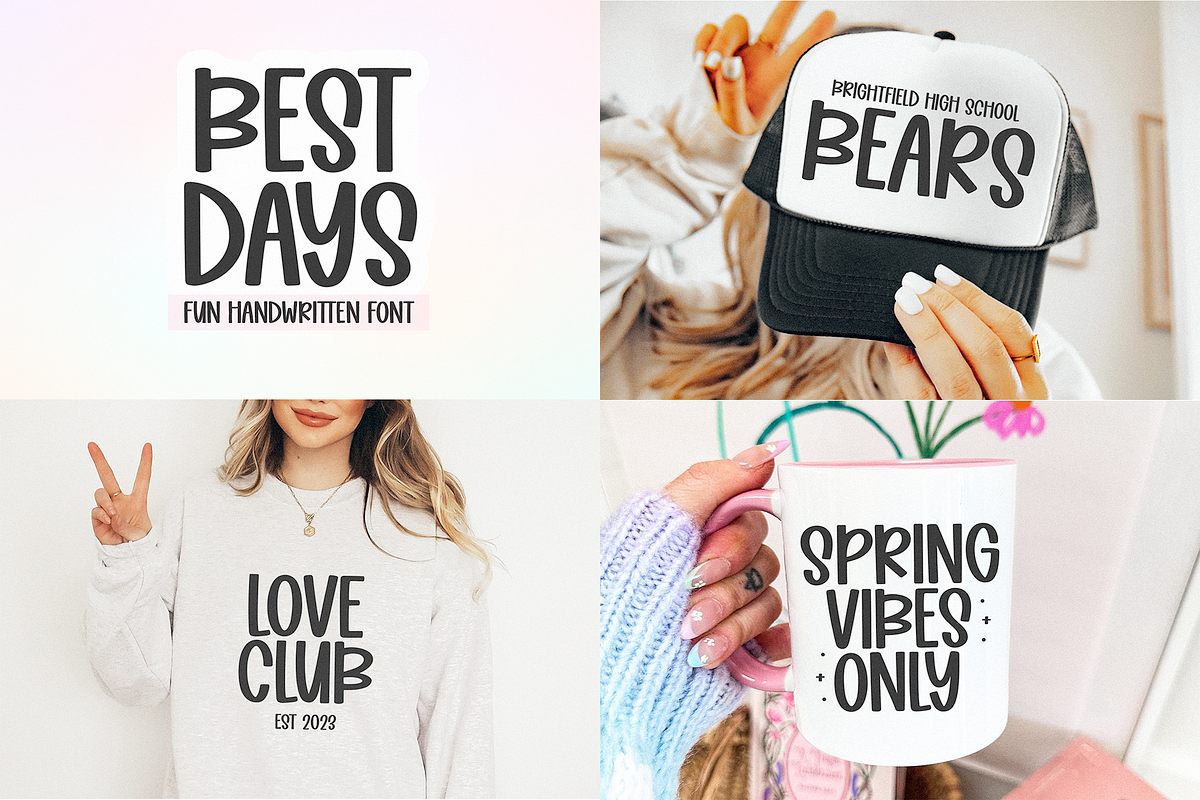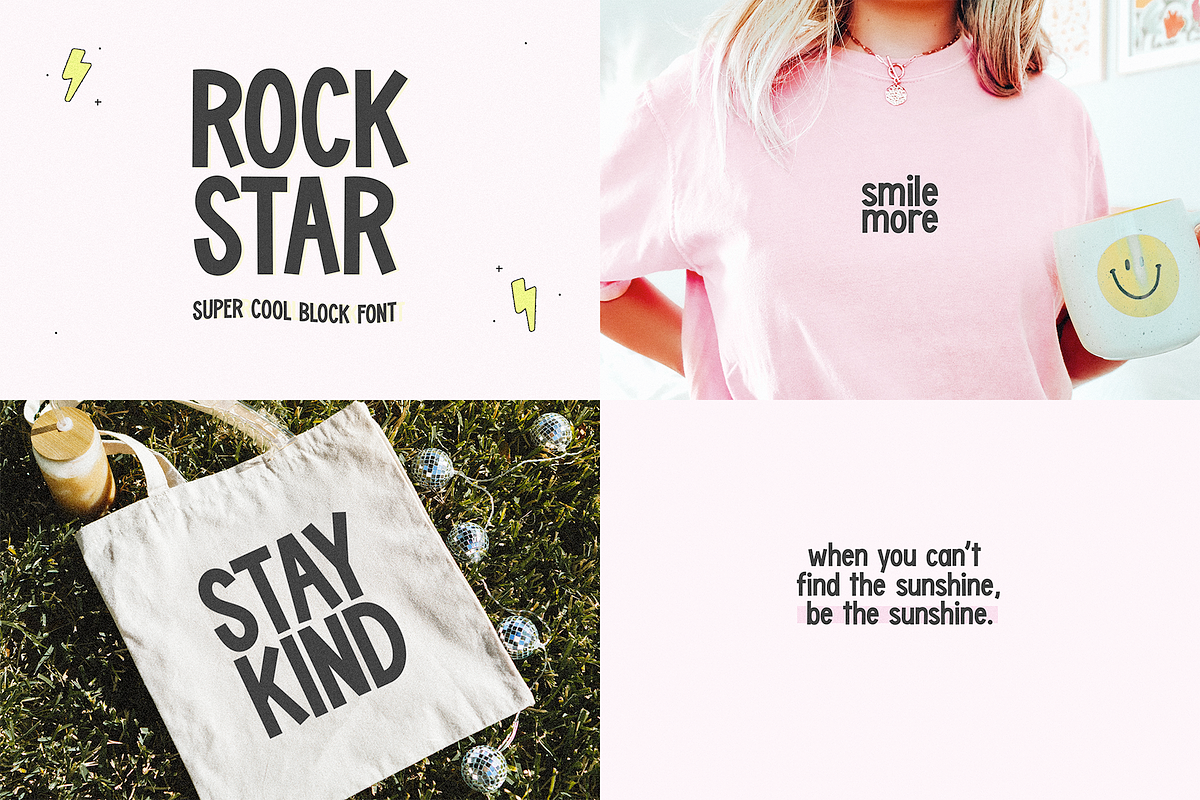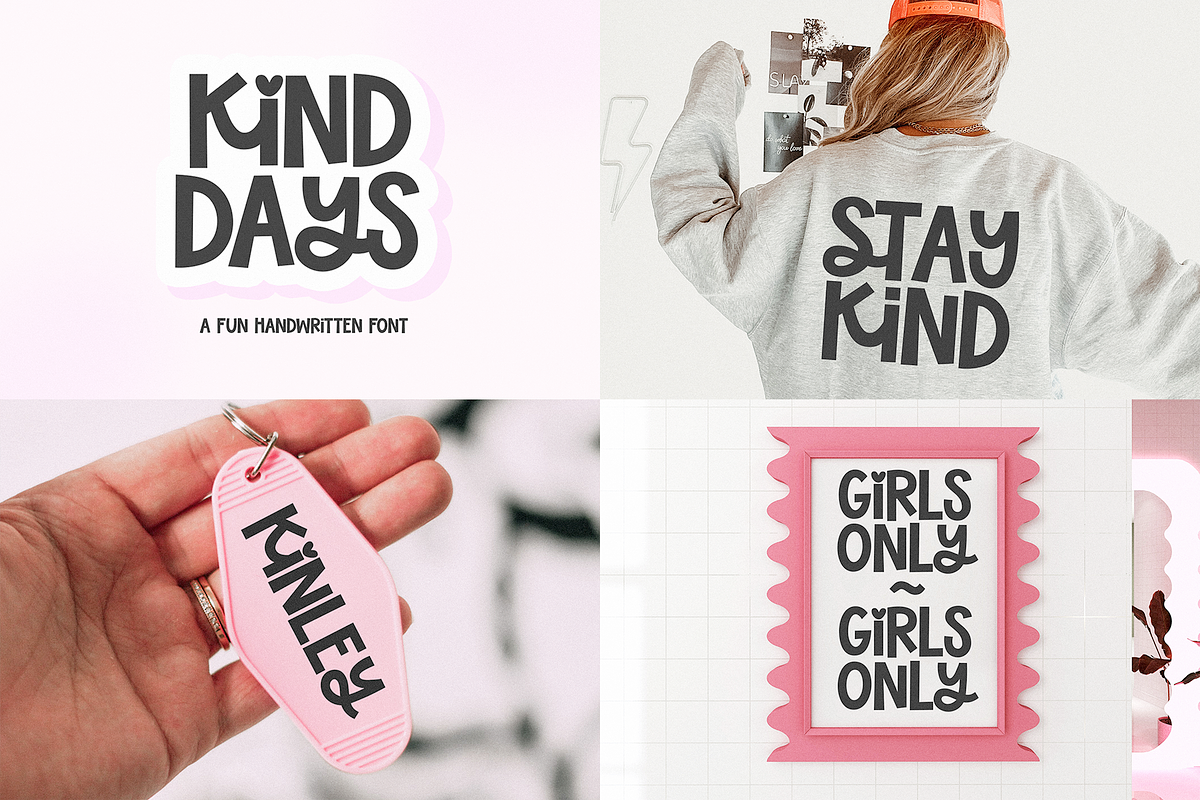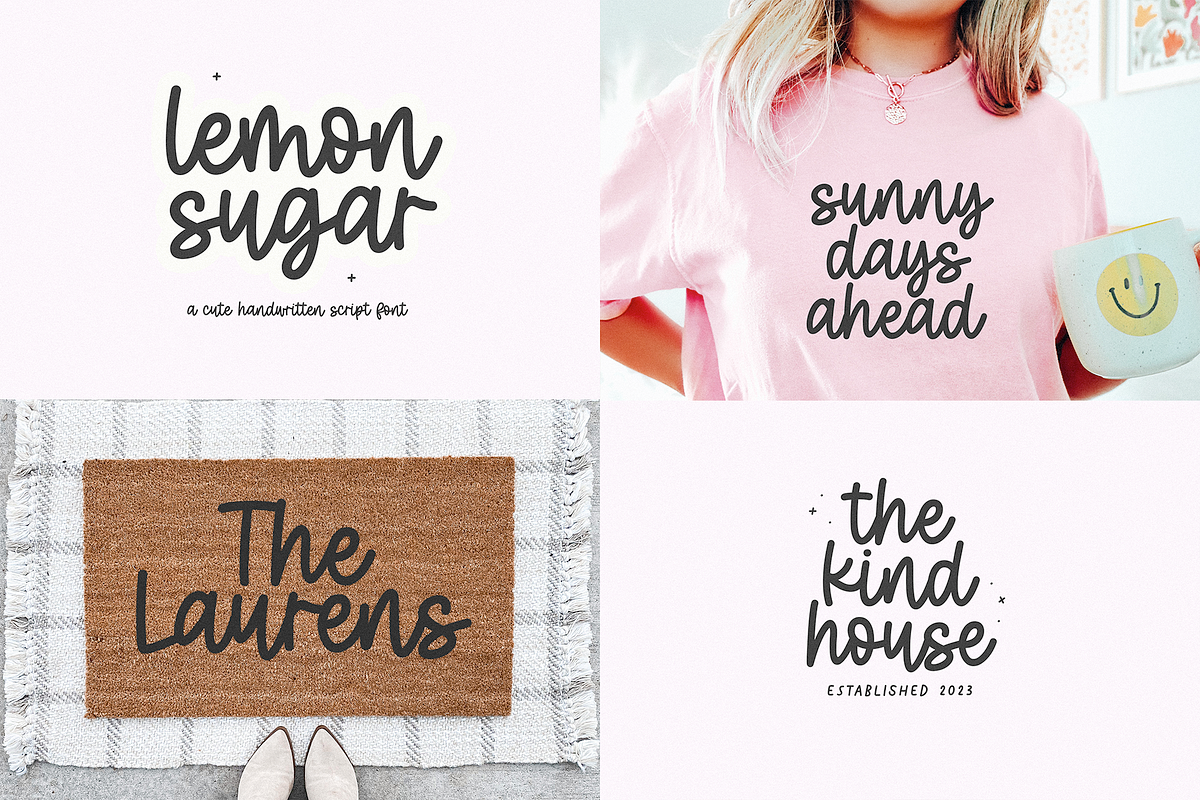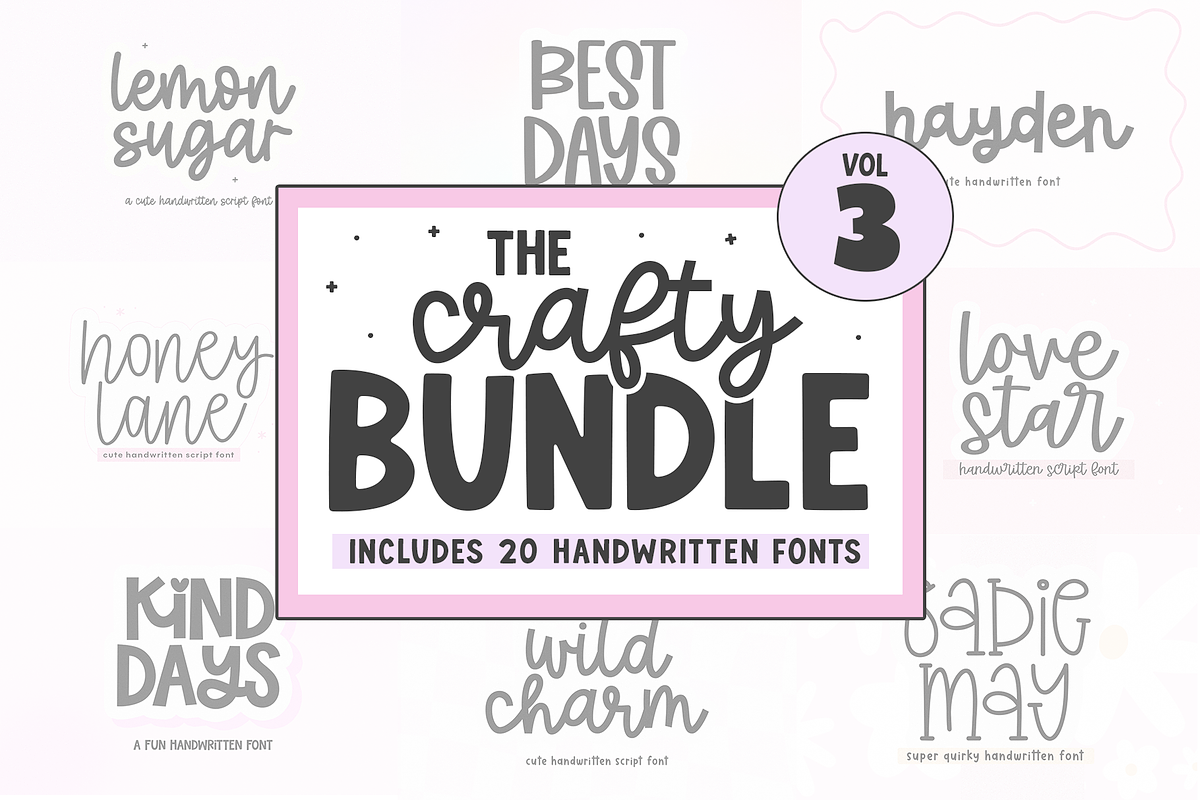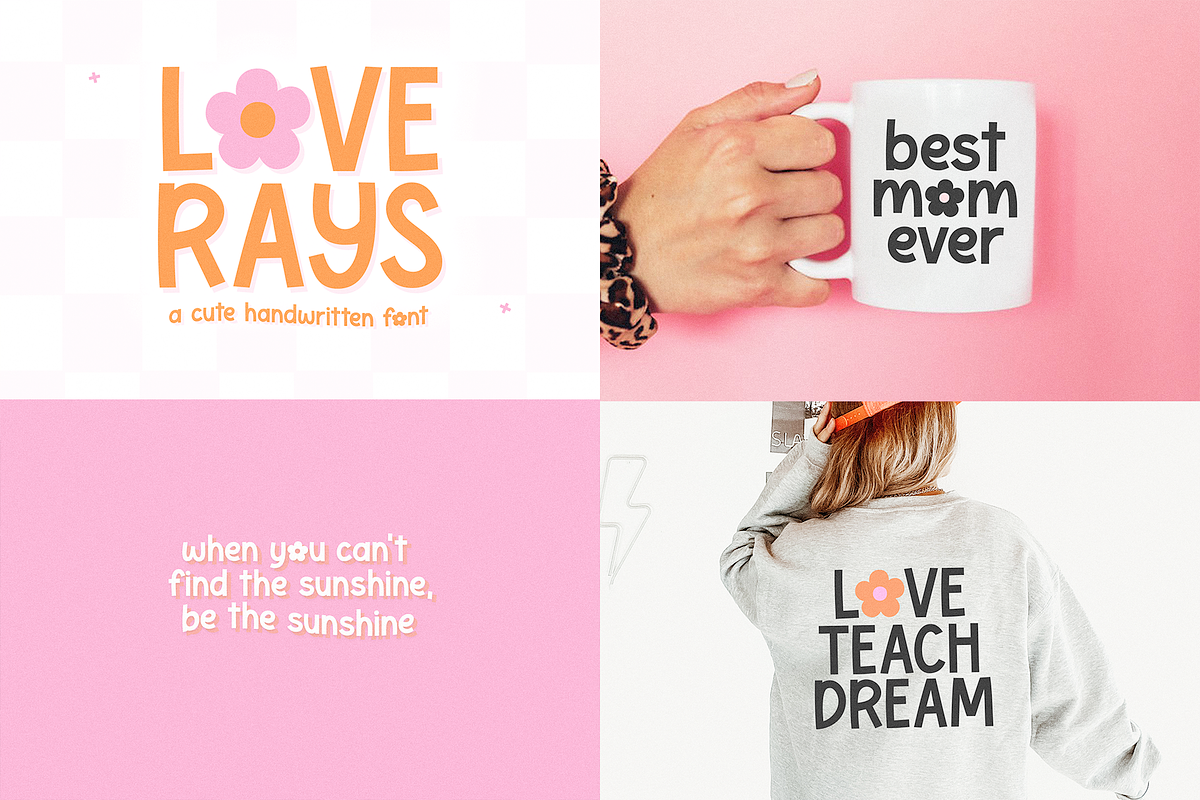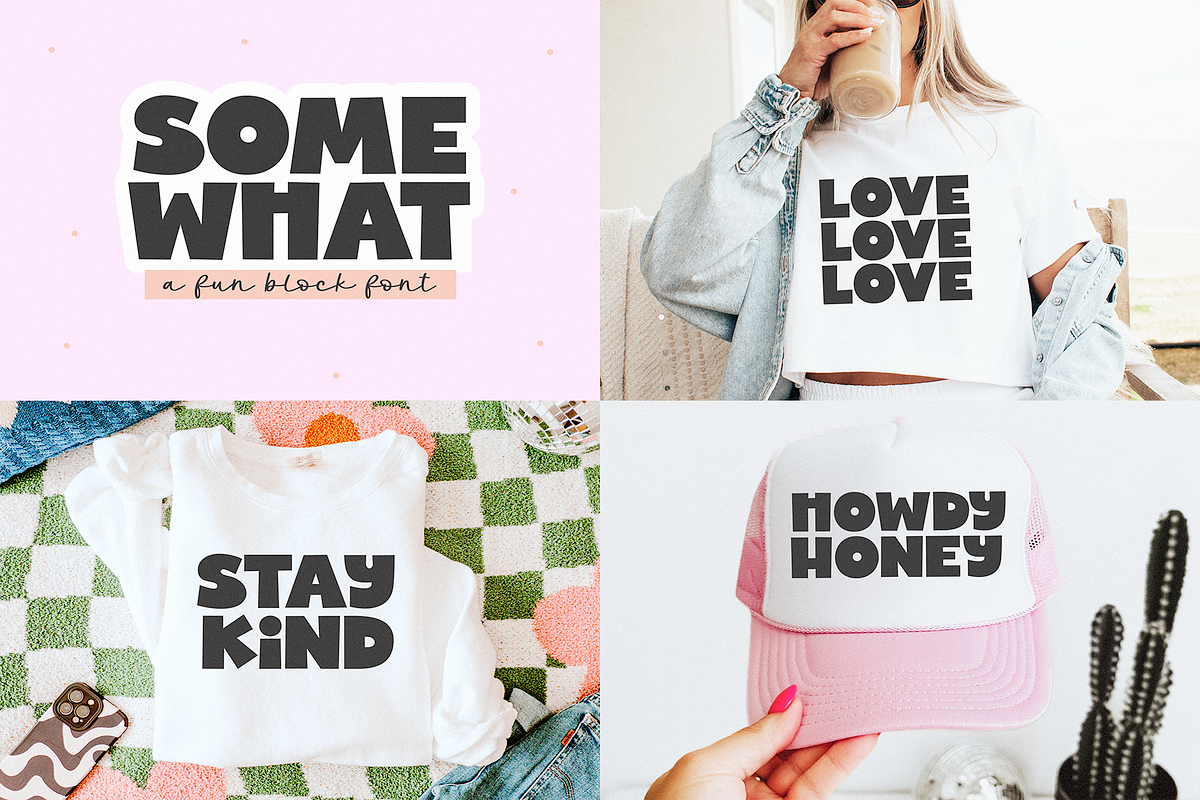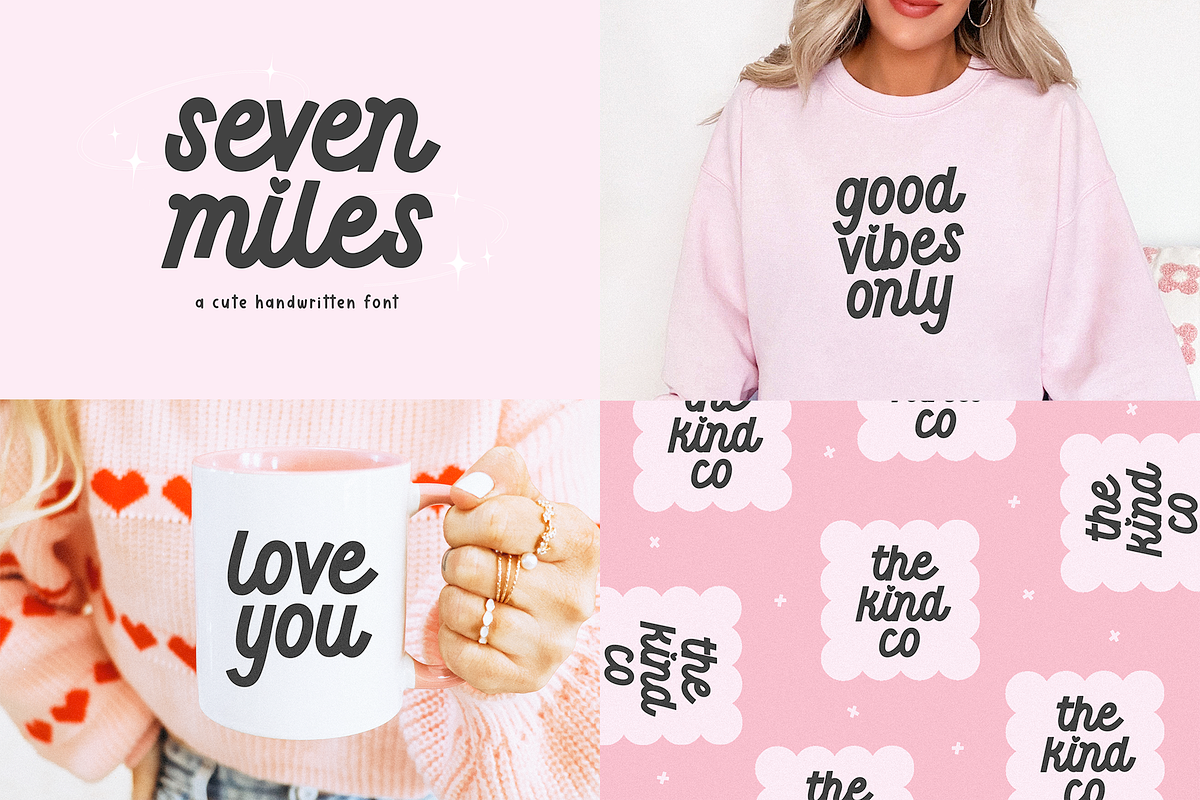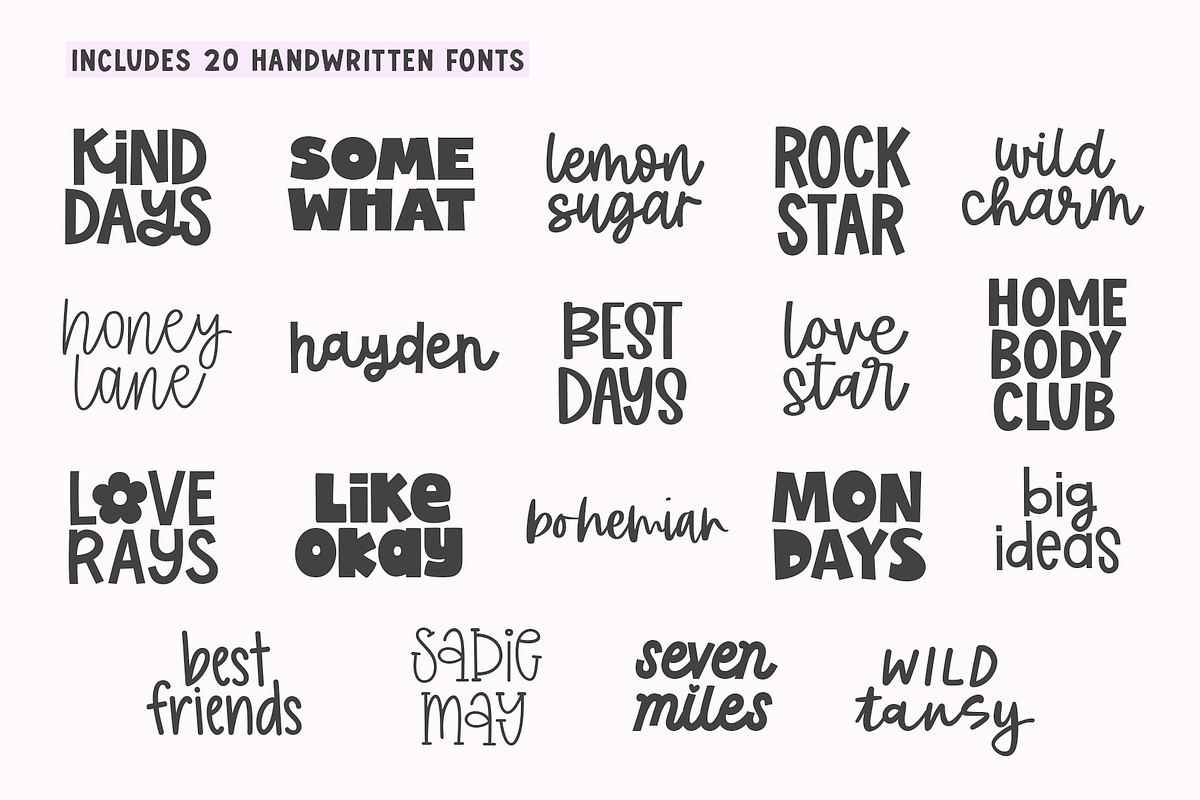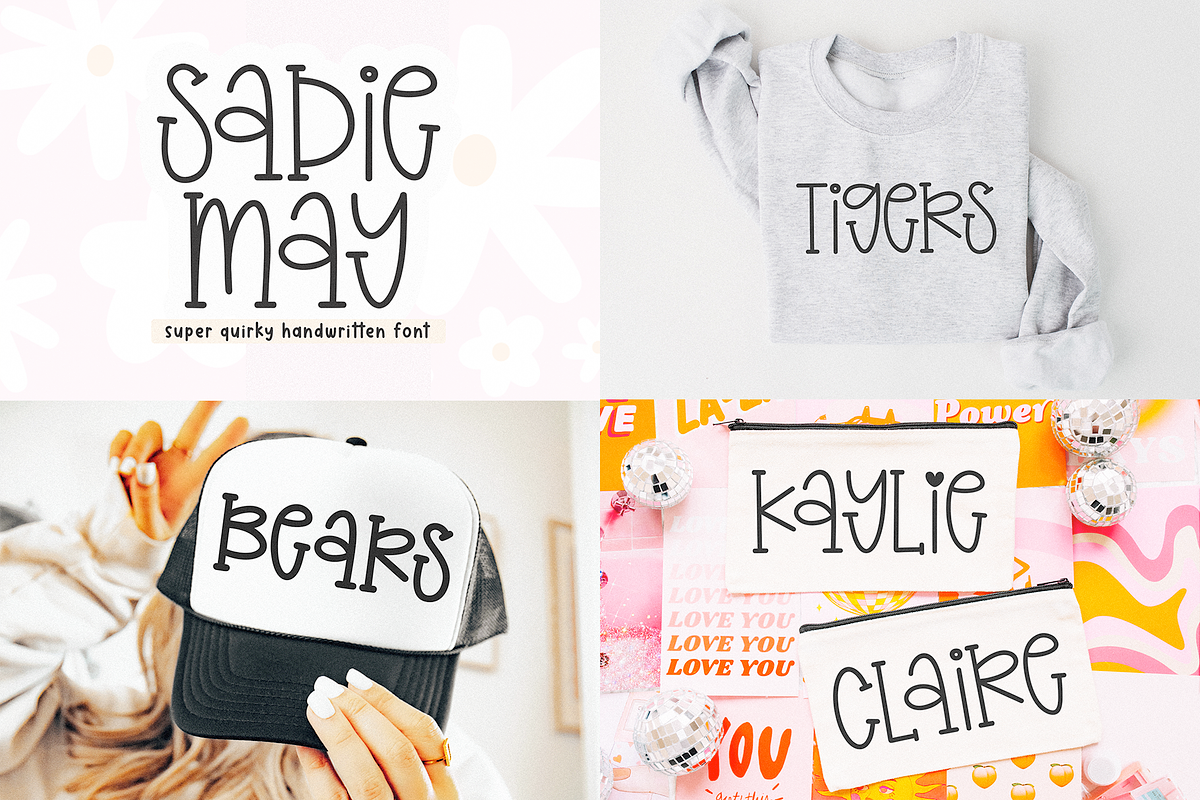
Crafty Font Bundle | Volume 3
CRAFTY FONT BUNDLE | VOL 3
This bundle includes a handpicked selection of fonts - a little bit of everything + some new fonts! Even if you already own a font or two, this bundle is still a huge discount!
20 Fonts Included:
- Best Days
- Hayden
- Lemon Sugar
- Wild Charm
- Homebody Club
- Honey Lane
- Loverays
- Wild Tansy Script
- Wild Tansy Sans
- Mondays
- Somewhat
- Lovestar
- Sadie May
- Rockstar
- Kind Days
- Like Okay
- Best Friends
- Bohemian
- Seven Miles
- Big Ideas
There are unlimited ways that you can use this bundle!
For example - svg quotes, stickers, cricut projects, farmhouse signs, shirts, mugs, doormats, keychains, door hangers, invitations, branding, social media, logos and more!